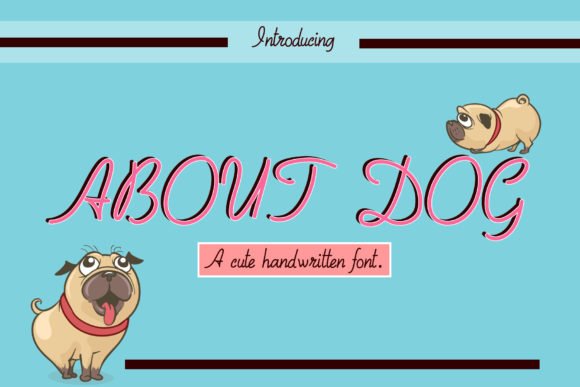
Introduction to About Dog Font
About Dog is a sweet and cursive handwritten font.
This gentle font will look gorgeous on a variety of design ideas It will add a joyful and romantic touch to each of your projects.